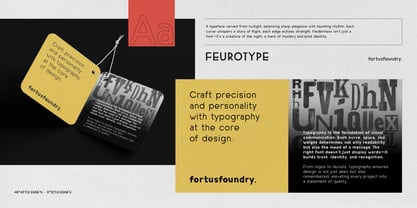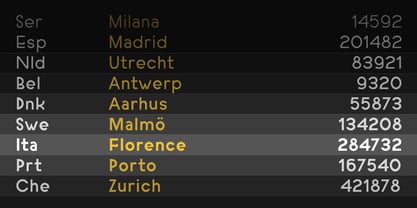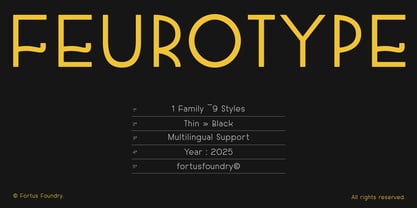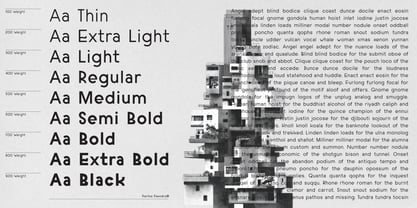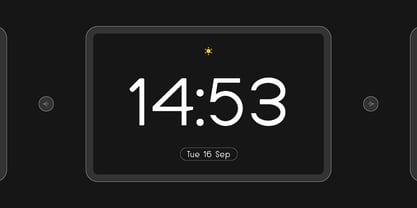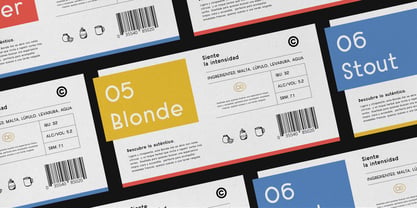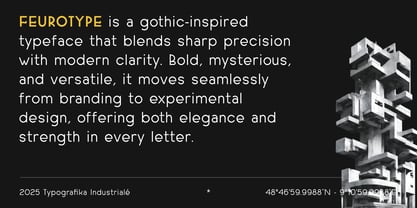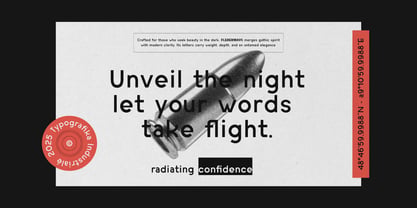
Feurotype
by Fortus Foundry
The Feurotype Font Family was designed by Zulhilmi Hanip and published by Fortus Foundry. Feurotype contains 9 styles and family package options. More about this family
Feurotype is a versatile geometric sans-serif typeface that expertly balances precision, warmth, and personality. Crafted for optimal clarity across various sizes, it delivers clean, modern typography infused with distinctive character. This typeface excels in editorial design, branding, UI/UX applications, signage, and corporate identity, making it the ideal choice whenever you require a sharp yet approachable voice. With multiple weights and styles available, Feurotype adapts seamlessly to diverse design needs, ensuring your message stands out with clarity and style.
Designers: Zulhilmi Hanip
Foundry: Fortus Foundry